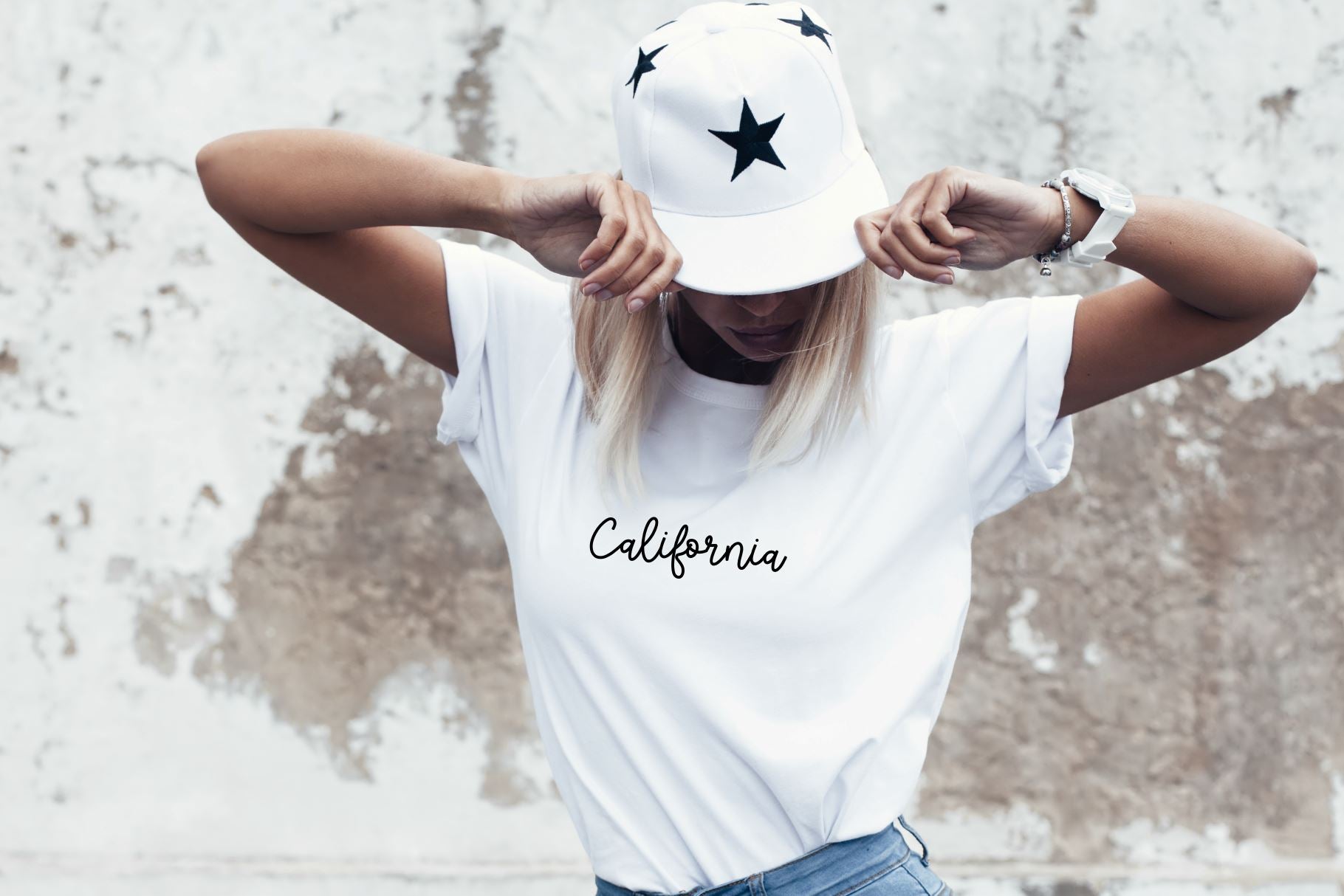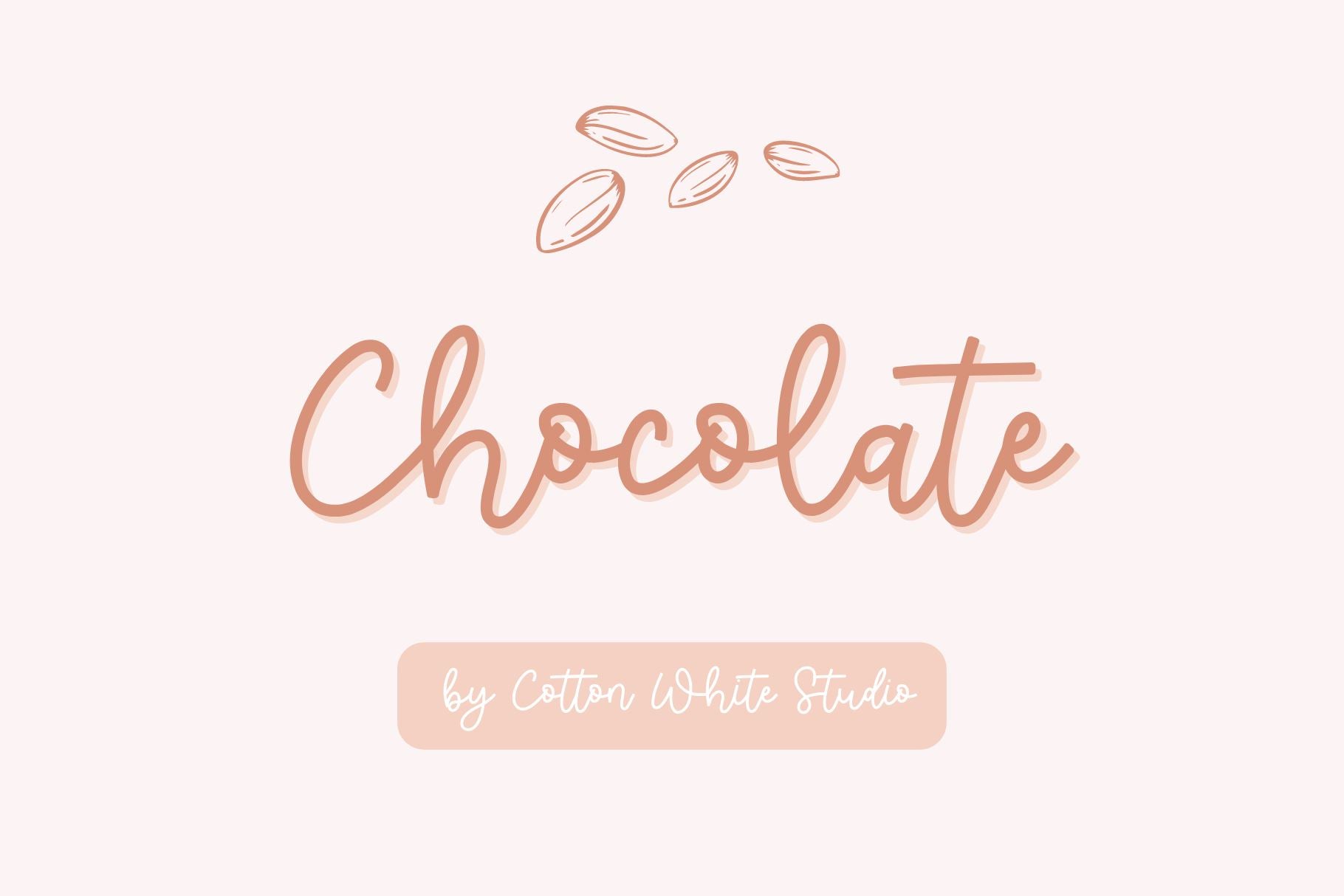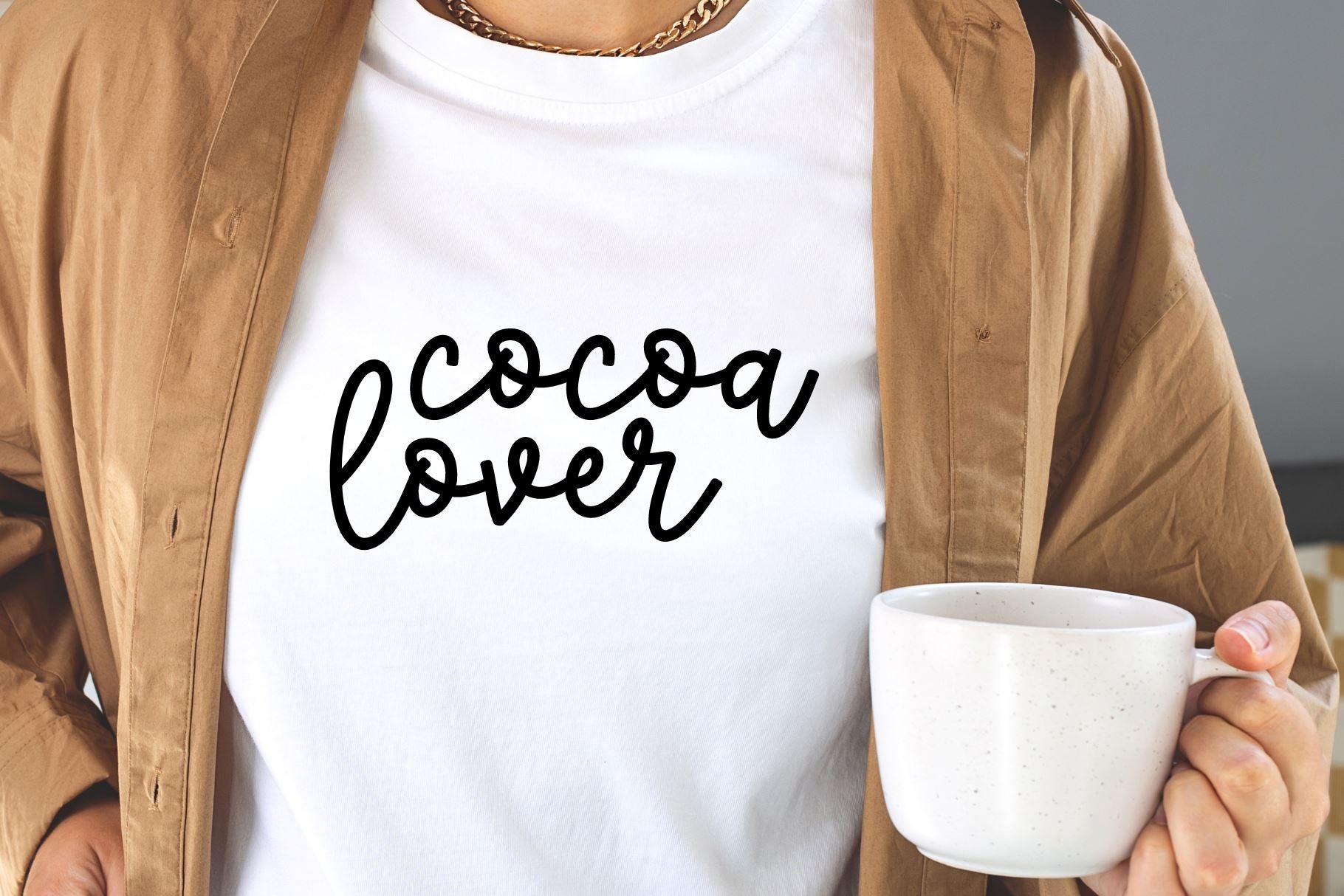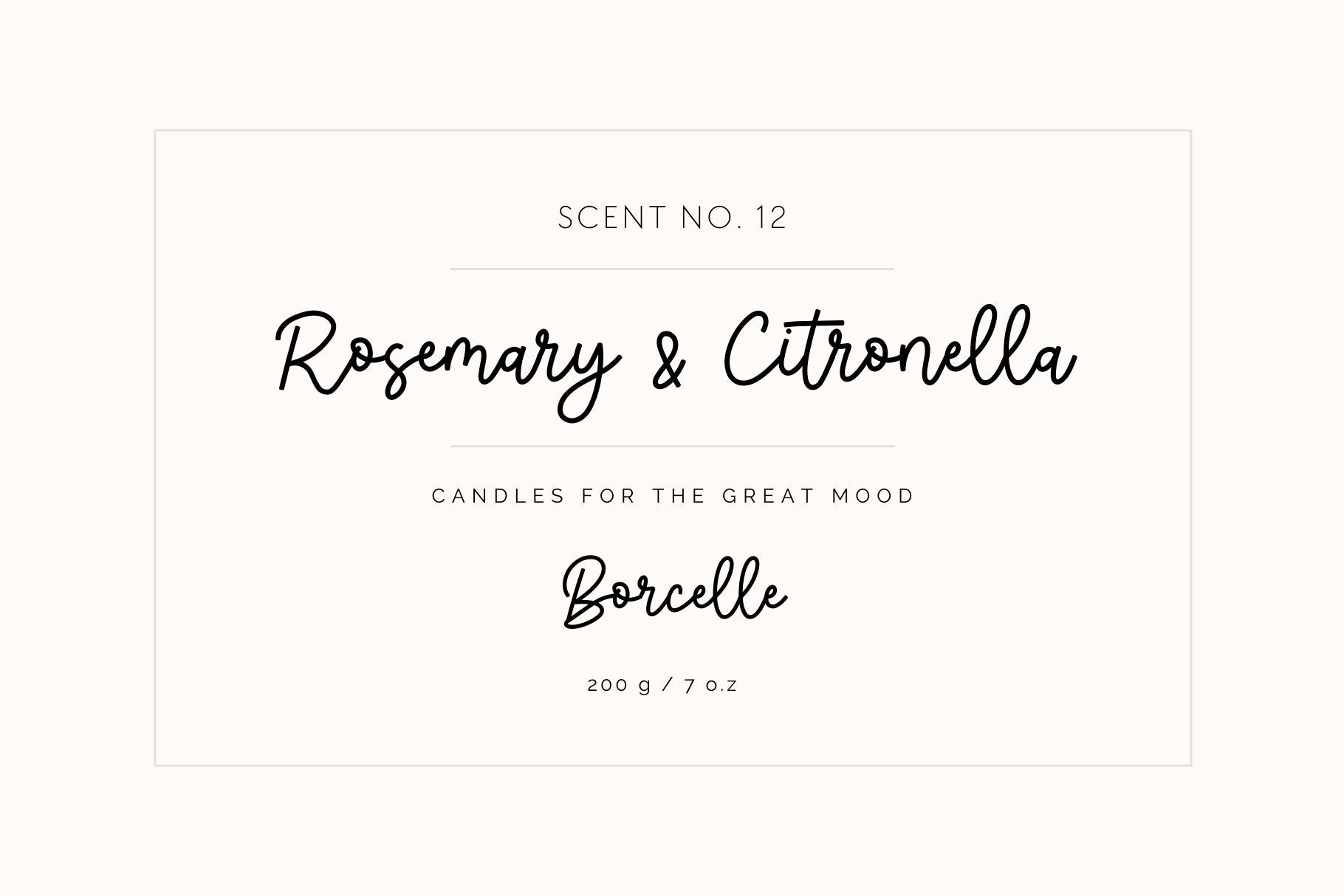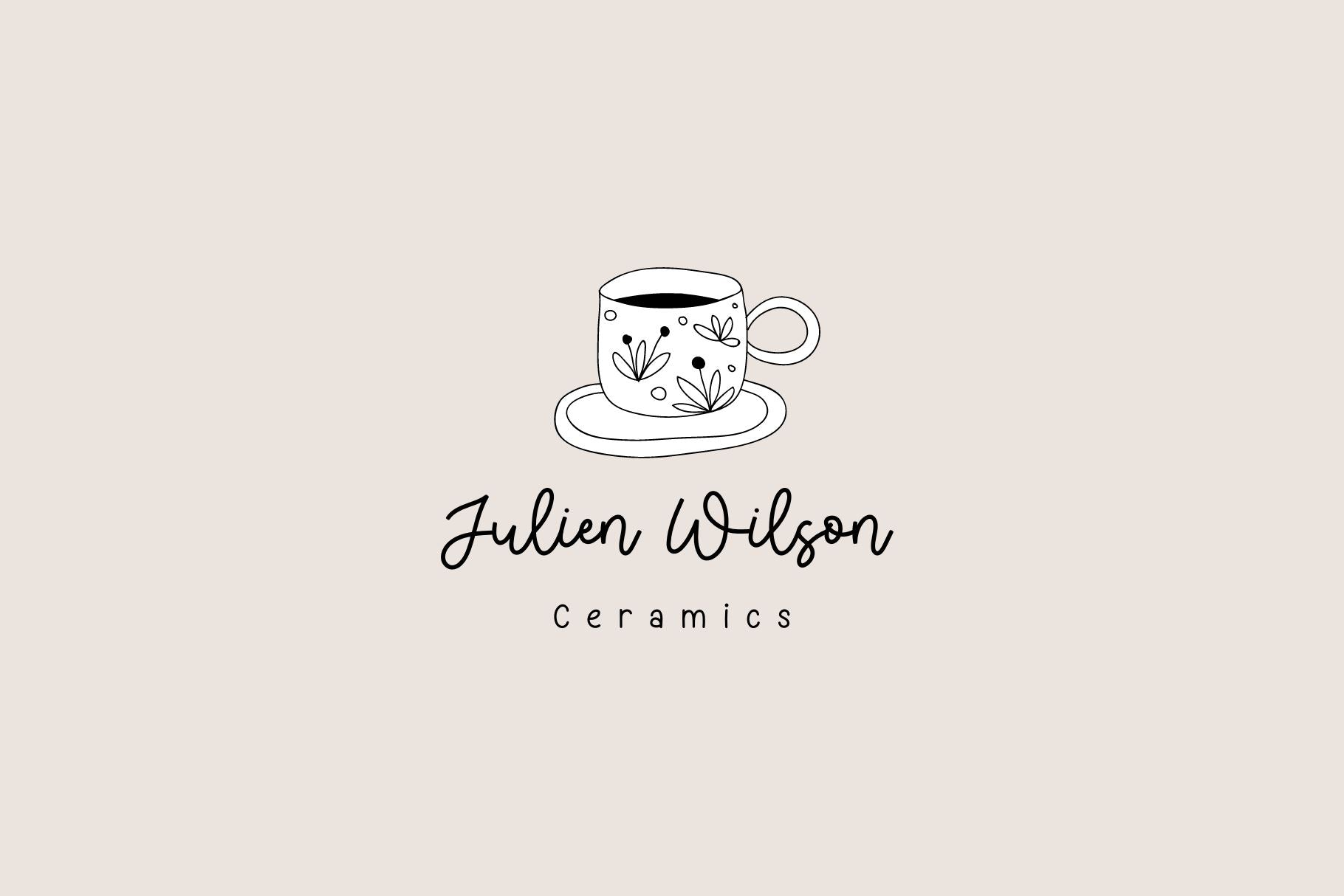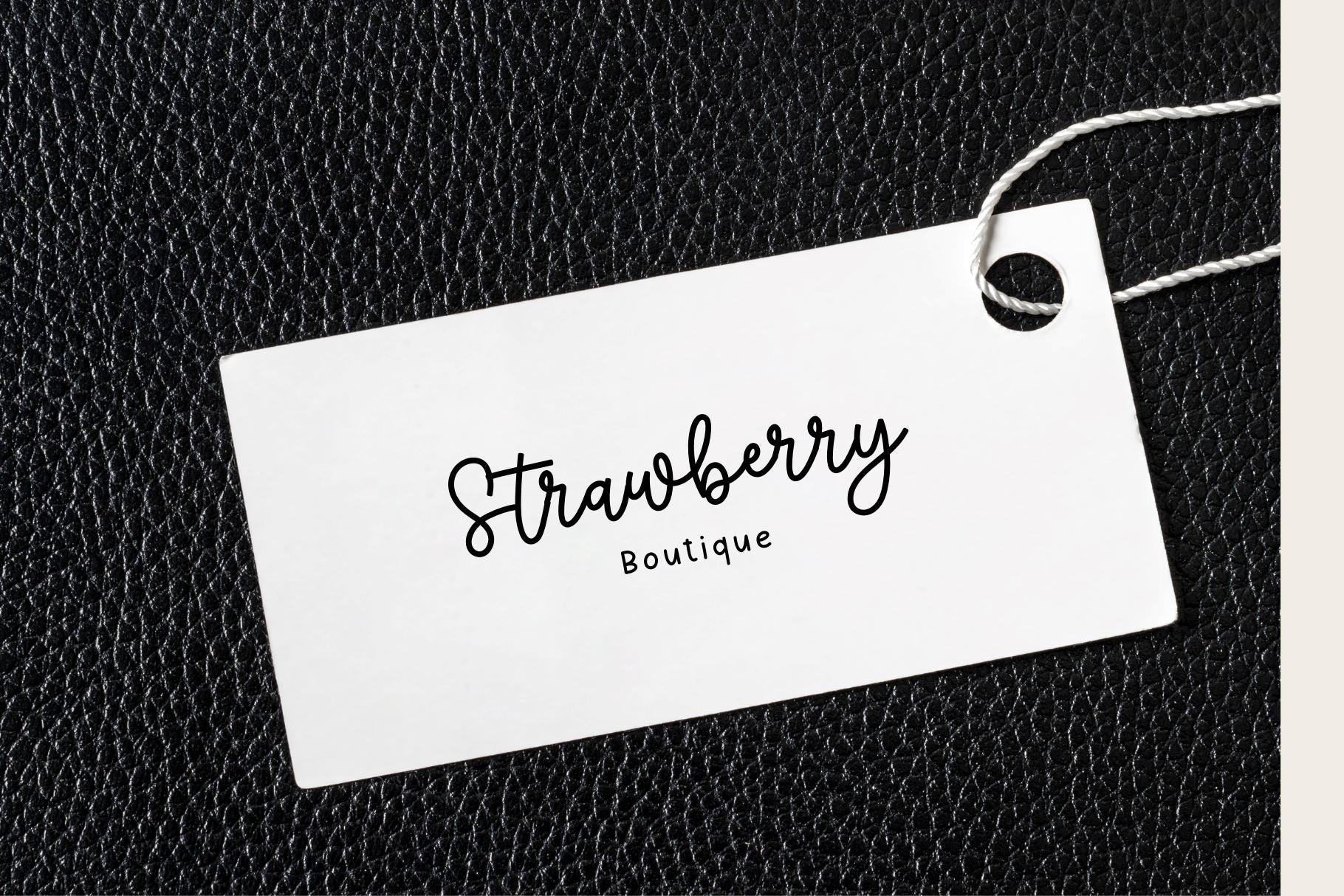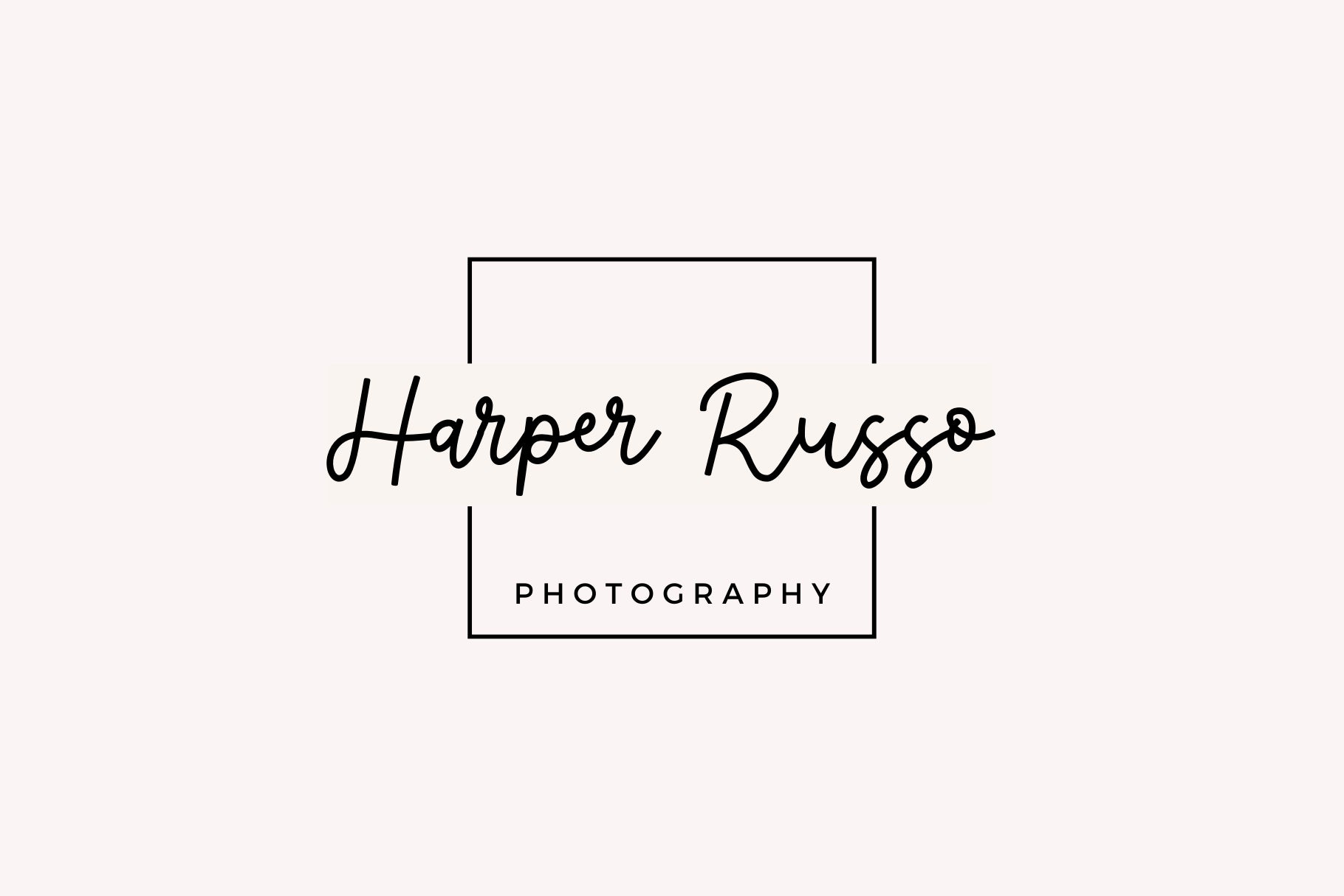
Chocolate
About Chocolate
Add a beautiful, hand-crafted look to your work with this fabulously scripted font! A hand-drawn elegant font that will add a unique touch to your work. Perfect for branding, invitations, blogs, and planners. Adding an authentic hand-lettered touch to your projects couldnвҖҷt be easier!В В This font is delivered in OTF, TTF, WOFF and WOFF2 Uppercase Letters Lowercase Letters Numbers & Punctuation Multilingual Support В В Characters: a b c d e f g h i j k l m n o p q r s t u v w x y z A B C D E F G H I J K L M N O P Q R S T U V W X Y Z 0 1 2 3 4 5 6 7 8 9 . , : ; ! ? ‘ \” вҖҳ вҖҷ вҖң вҖқ @ _ & # % * + – Г— Г· = ~ < > / \ ( ) { } [ ] $ Вў вӮ¬ ВЈ ВҘ В© В® в„ў В ГҖ ГҒ ГӮ Гғ Г„ Г… ГҶ ГҮ ГҲ Гү ГҠ ГӢ ГҢ ГҚ ГҺ ГҸ Г‘ Г’ Г“ Г” Г• Г– Гҳ Е’ Гҷ Гҡ Гӣ Гң Гқ Её Гһ Гҗ ЕҒ Е  ЕҪ ВЎ Вҝ В« В» вҖ№ вҖә ВӨ вҖў В° Вұ вҲ’ В¶ В§ вҖ° вҒ„ вҖ“ вҖ” Г  ГЎ Гў ГЈ ГӨ ГҘ ГҰ Г§ ГЁ Г© ГӘ Г« Г¬ Гӯ Г® ГҜ Гұ ГІ Гі Гҙ Гө Г¶ Гё Е“ Г№ Гә Г» Гј ГҪ Гҝ Гҫ Г° ЕӮ ЕЎ Еҫ Гҹ Дұ ^ ЛҶ ЛҮ ВЁ Лң ‘ Вҙ Вё вҖӣ вҖҡ вҖһ вҖҰ | вҖ  вҖЎ